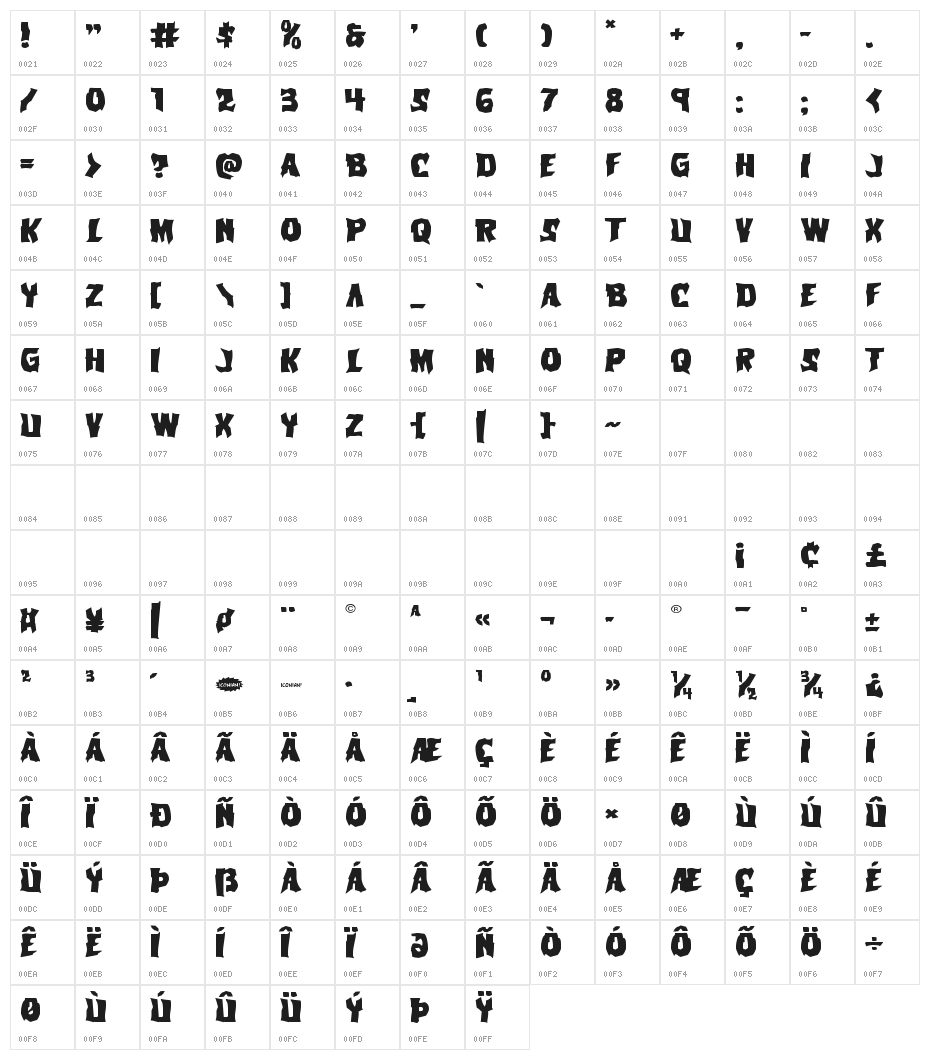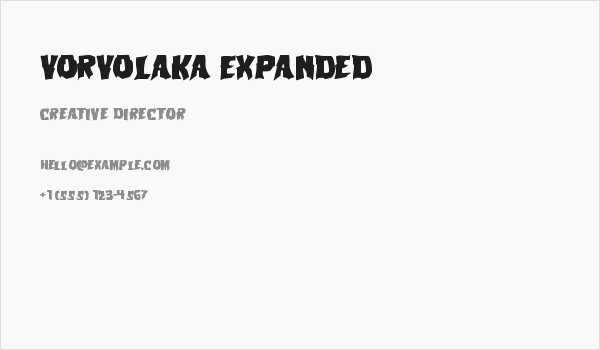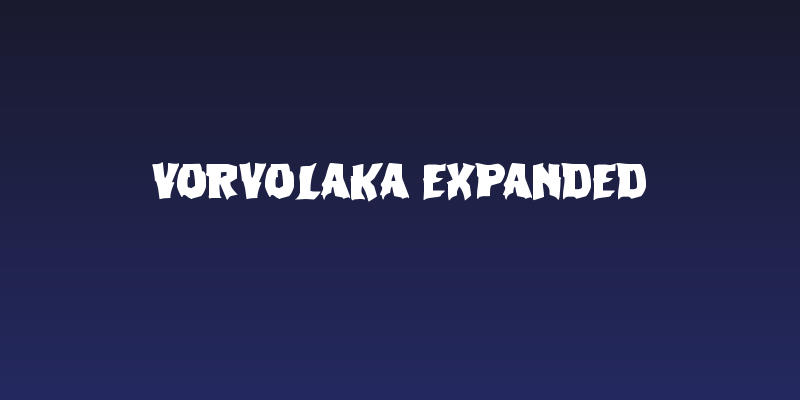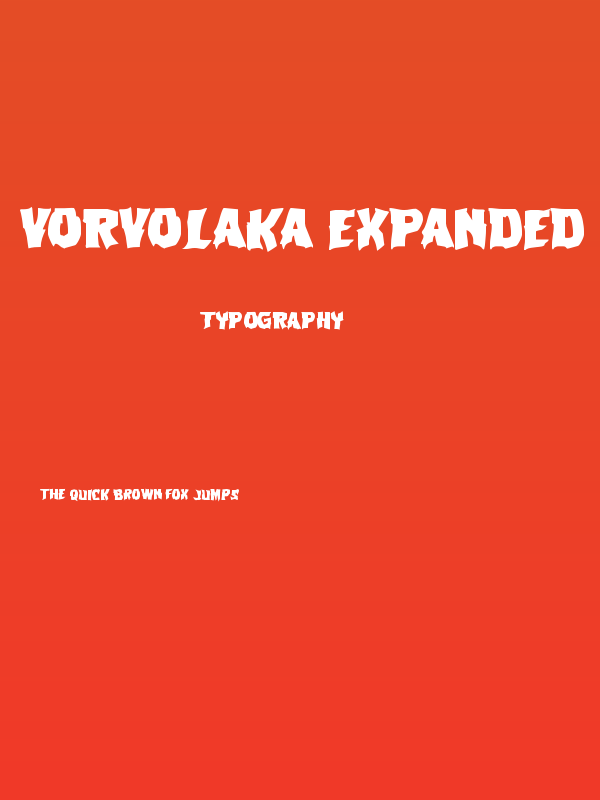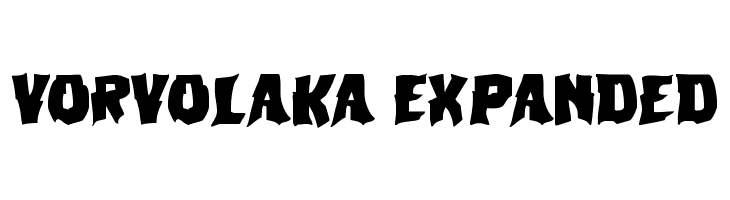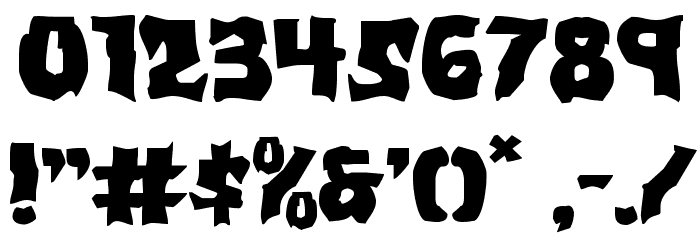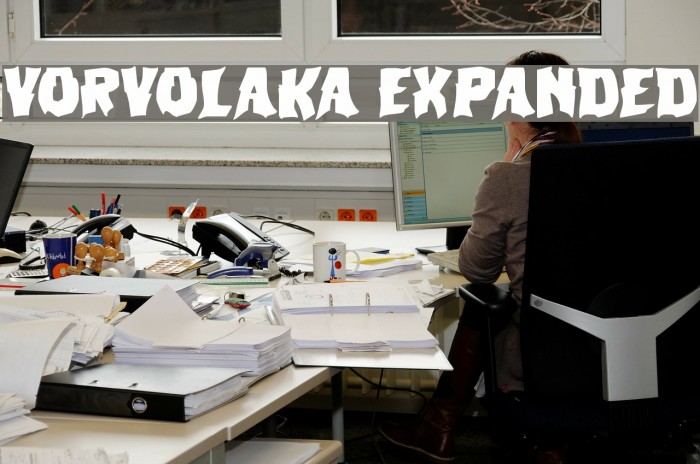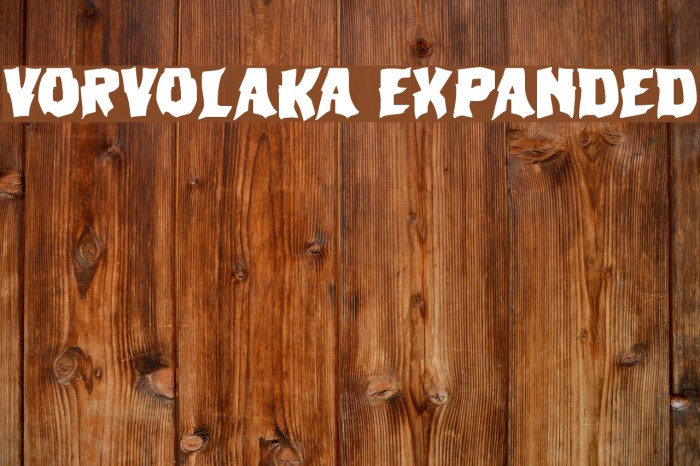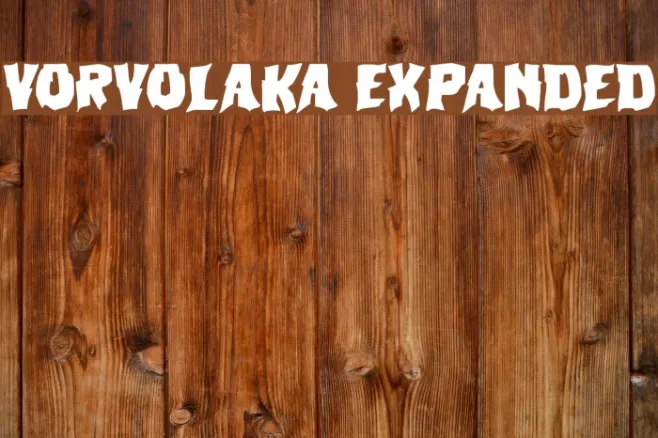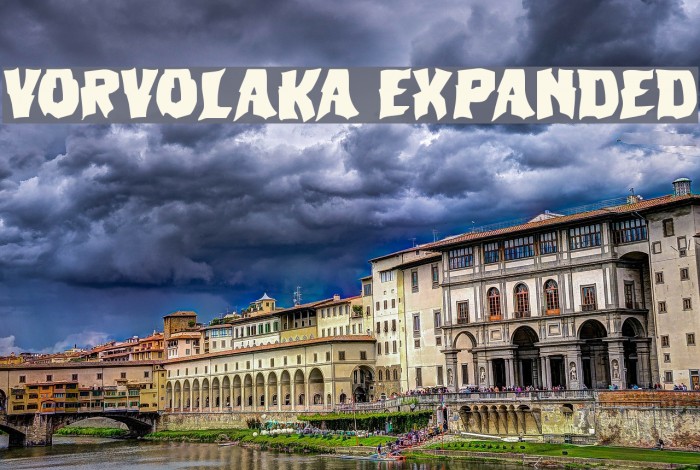
Vorvolaka Expanded Font
Vorvolaka Expanded Description
This font features a bold and dramatic style with jagged, irregular edges that give it a rugged and intense appearance. The characters are heavily stylized, with sharp angles and a sense of movement that suggests a dynamic, almost chaotic energy. The uppercase and lowercase letters maintain a consistent design, emphasizing their boldness and unique form. Numbers and special characters follow the same aesthetic, ensuring a cohesive look across all text elements. The font's expanded width adds to its commanding presence, making it ideal for attention-grabbing designs.
| Proposed Projects | Ideal for horror-themed posters, edgy branding, album covers, and video game titles. |